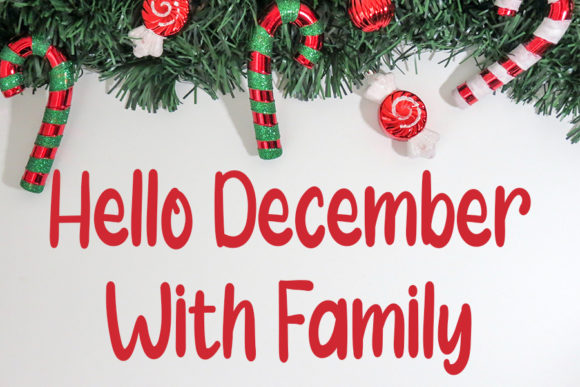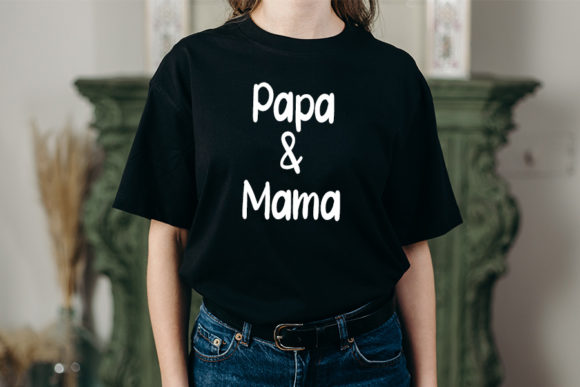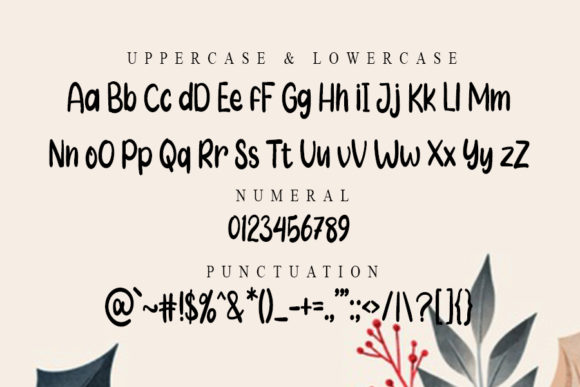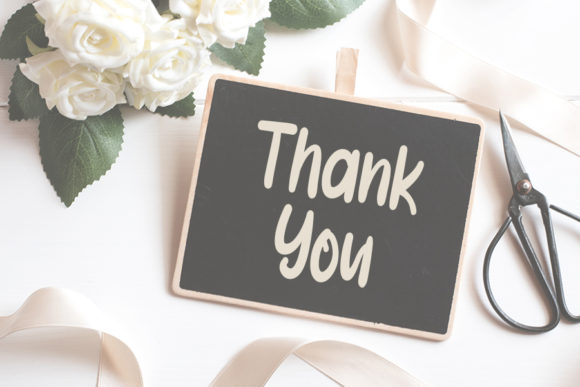
Welcome Christmas Font
About Welcome Christmas Font
Welcome Christmas is a simple and joyful handwritten font. Its distinct and well rounded letters make this font a masterpiece. Fall in love with its incredibly versatile style and use it to create spectacular designs!